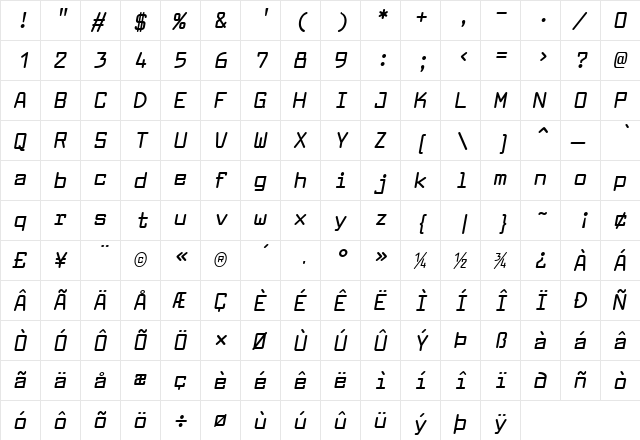
Larabiefont Bold Italic
Design Context for Larabiefont Typeface
Larabiefont offers clean, dependable letterforms without strong stylistic allegiance, making it a practical choice for designers who need flexibility. Its italic angle brings a sense of urgency and motion to the letterforms. Its bold stroke weight gives it real presence on the page.
Pro Tip: Use Larabiefont for emphasis, pull quotes, and subheadings where its slanted energy can add rhythm to the layout.